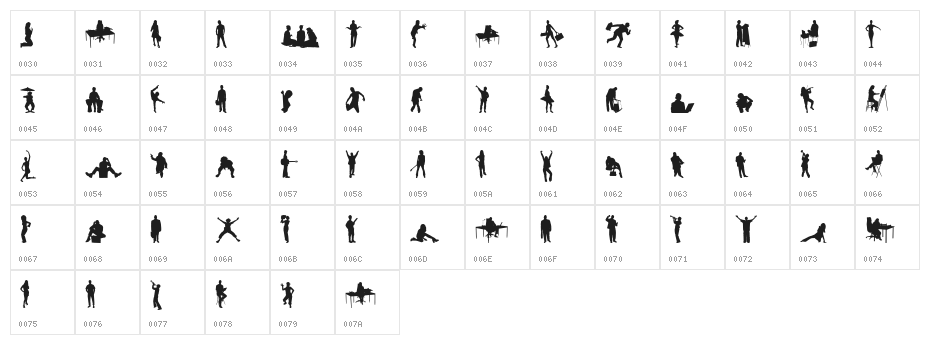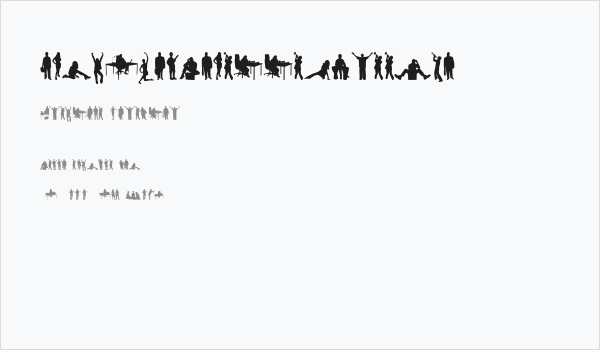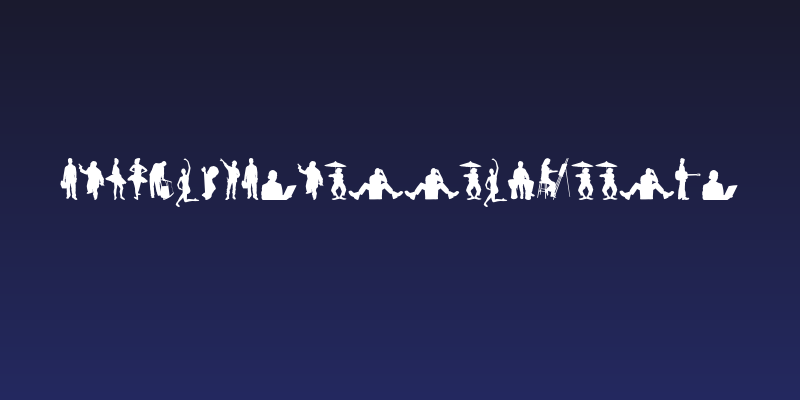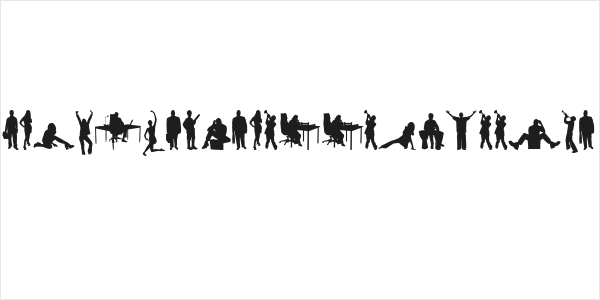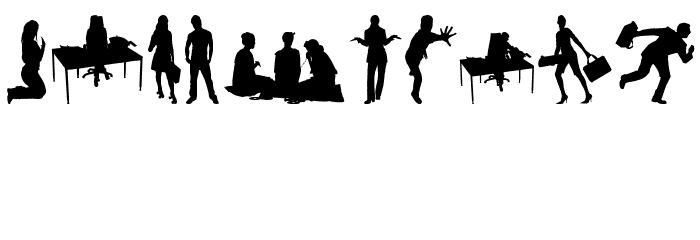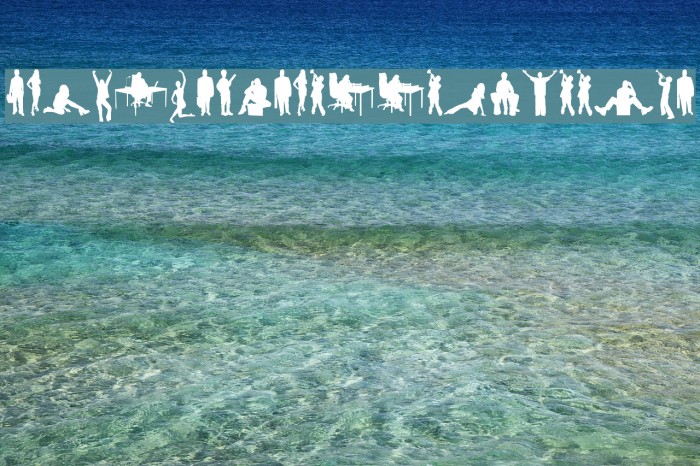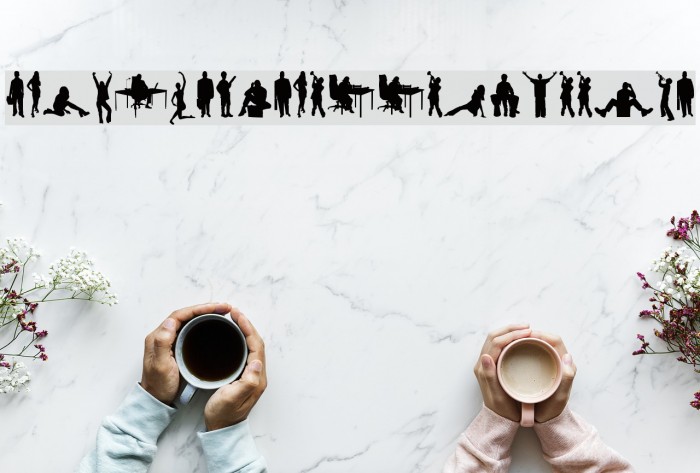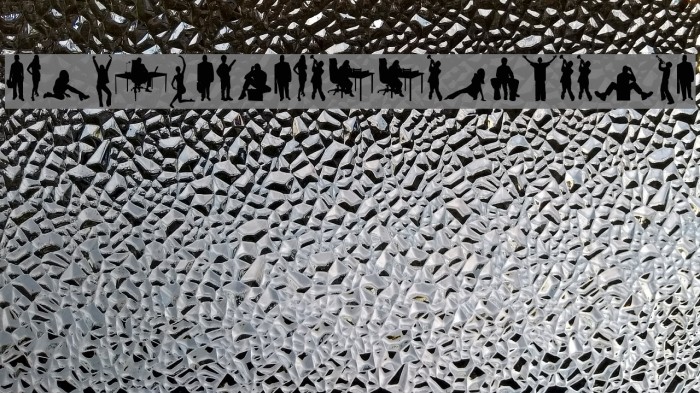
HumanSilhouettesFreeTwo Font
HumanSilhouettesFreeTwo Description
A collection of black human silhouette shapes depicting various poses and activities, including sitting, standing, dancing, working, and playing instruments. The silhouettes are solid black with no internal details, emphasizing form and posture.
| Overall Style | Modern, Minimalist |
| Use Case | Icons, Illustrations, Visual storytelling, User interface elements |
| Proposed Projects | Use in graphic design, presentations, infographics, websites, and educational materials to represent people without specific identity. |